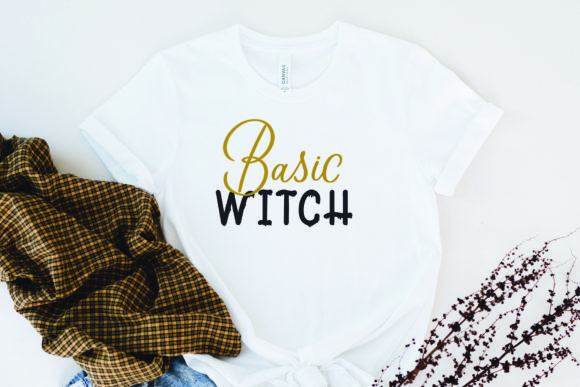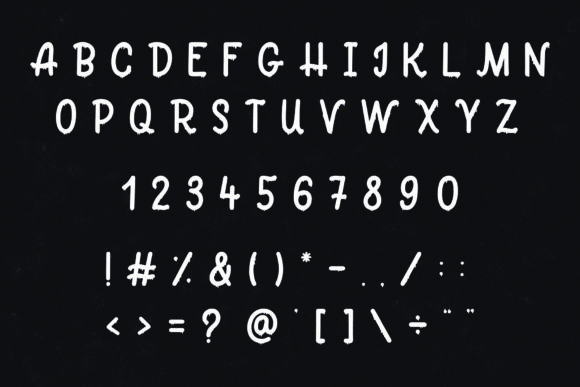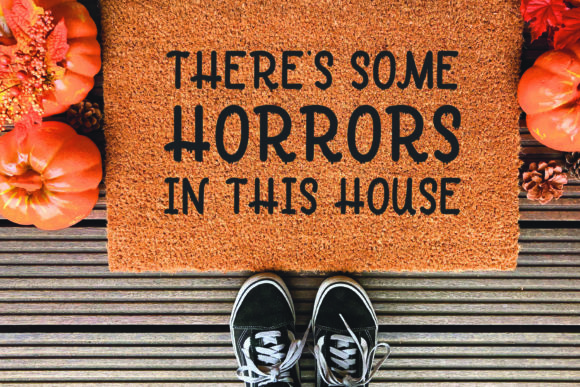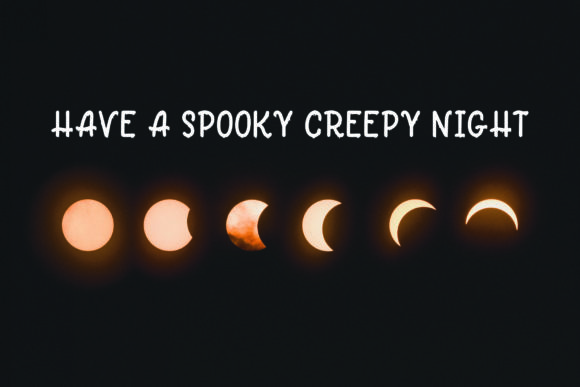
Introduction to Frightful Night Font
As the sun sets on a crisp autumn evening, and the moon rises high in the night sky, many of us feel the urge to unleash our creativity and tap into the spooky spirit of Halloween. For designers, this can be the perfect opportunity to experiment with unique typography and add a touch of eeriness to our projects. And, that’s exactly where the Frightful Night Font comes in – a cute and creepy display font that’s sure to elevate your designs to the next level.
Key Features of Frightful Night Font
- Unique Gothic-inspired design with intricate details, perfect for creative projects.
Honest Review: Frightful Night Font
As a designer, I was excited to try out the Frightful Night Font for my latest creative project. I was looking for a high-quality font that would add a spooky touch to my design. The Frightful Night Font delivers on that front, with its intricate and gothic-inspired design.
Here are some things that work well: ✨
- Unique and creative design: The Frightful Night Font is unlike any other font I’ve used before, making it perfect for projects that need a little extra flair.
- High-quality design: The font is well-crafted and easy to read, even in smaller sizes.
Overall, I’m impressed with the Frightful Night Font and would recommend it to designers looking for a unique and creative solution for their projects. While it may not be perfect, it’s a valuable resource that’s definitely worth checking out.
The Frightful Night Font is commonly used for Halloween-themed designs, horror movie posters, and spooky social media graphics. It’s also a great choice for adding a mysterious and eerie touch to your design projects.